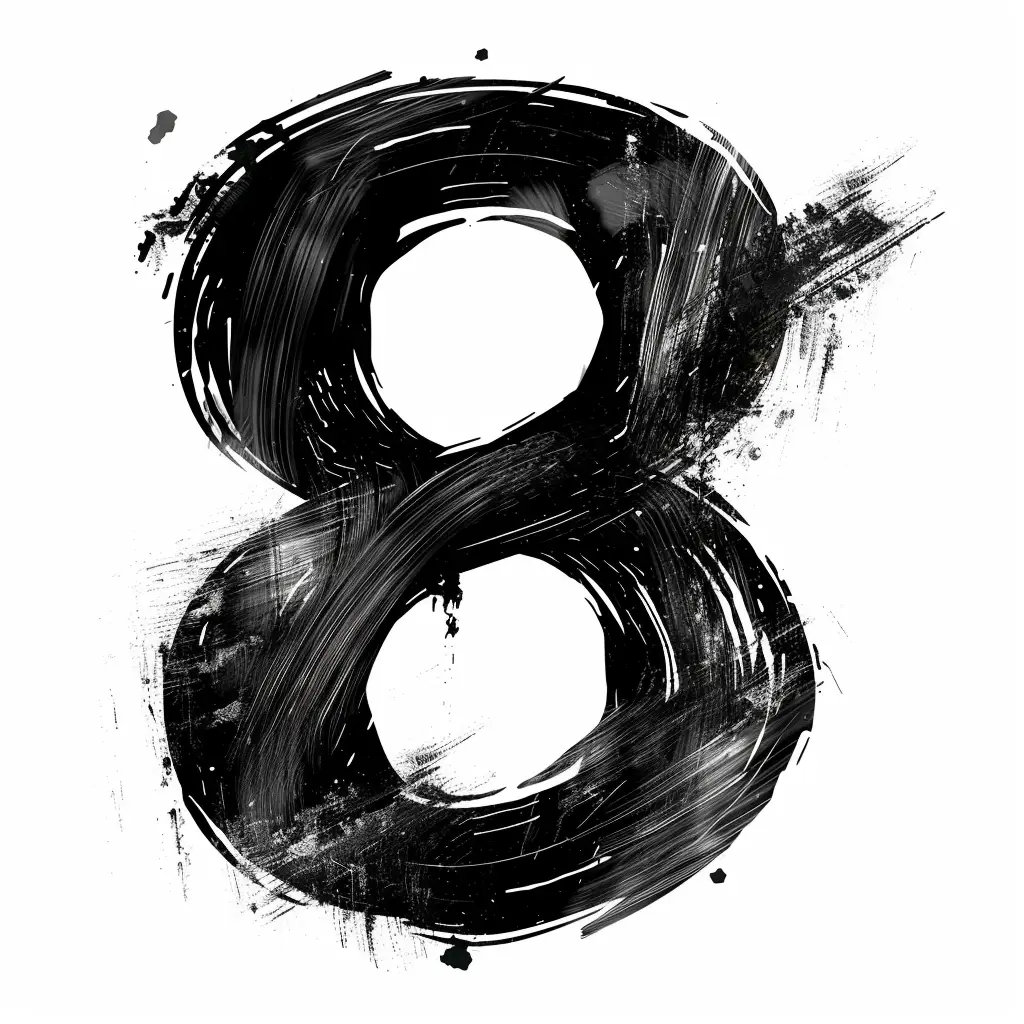
The image features a stylized, hand-painted number "8" rendered in bold black brushstrokes against a white background. The design incorporates dynamic, textured lines and splatters, giving it a rough, artistic, and slightly chaotic aesthetic. The high-contrast black-and-white color scheme emphasizes the number’s form, with subtle variations in the brushwork adding depth and movement.